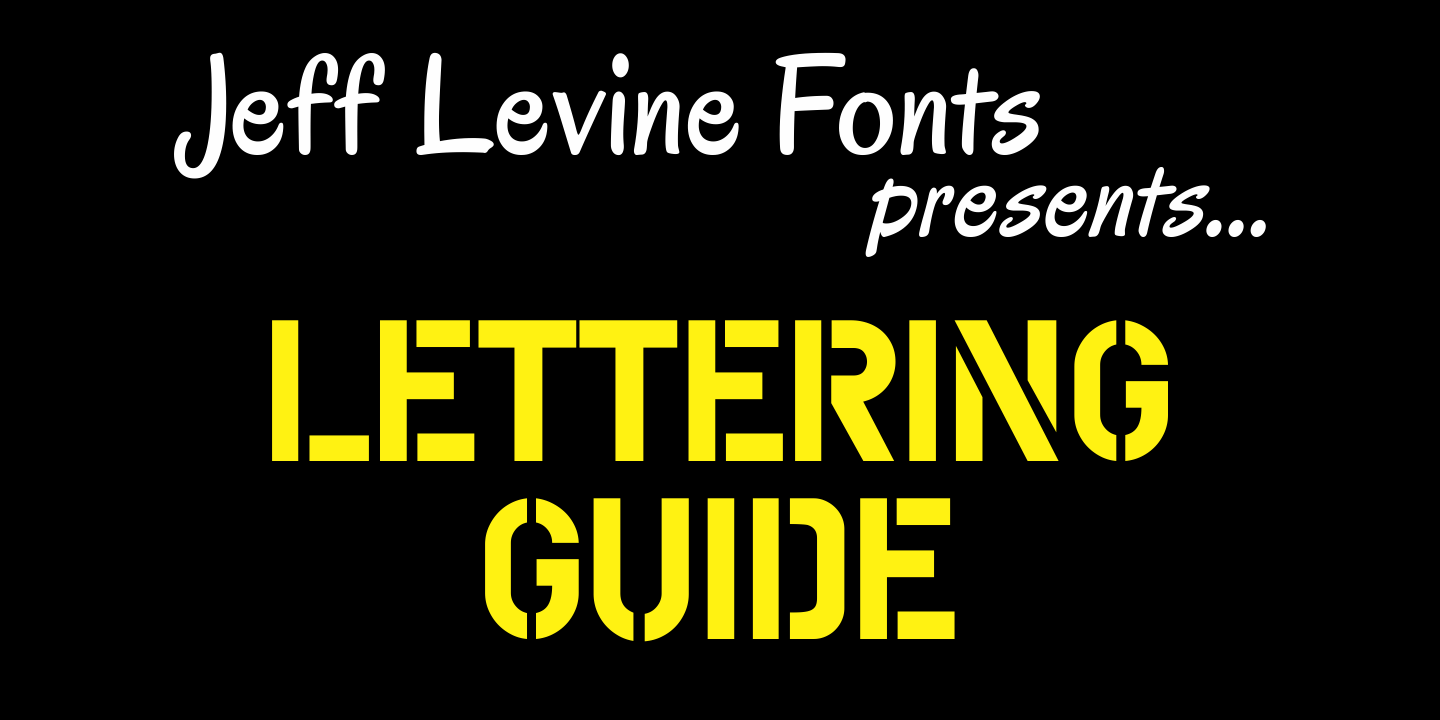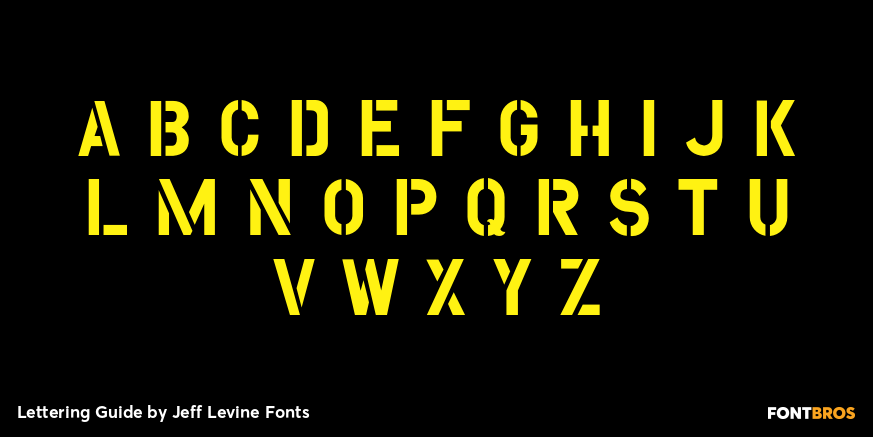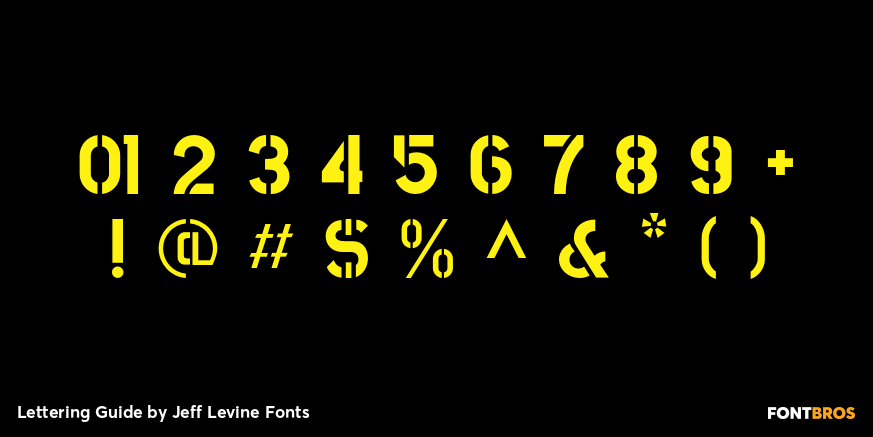
Lettering Guide
Lettering Guide JNL from Jeff Levine further continues his series of stencil fonts made from original sources.
Lettering Guide by Jeff Levine Fonts